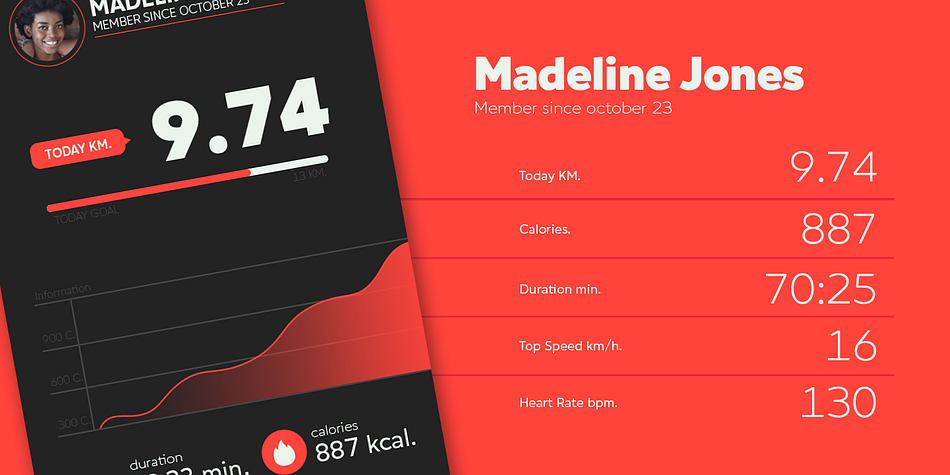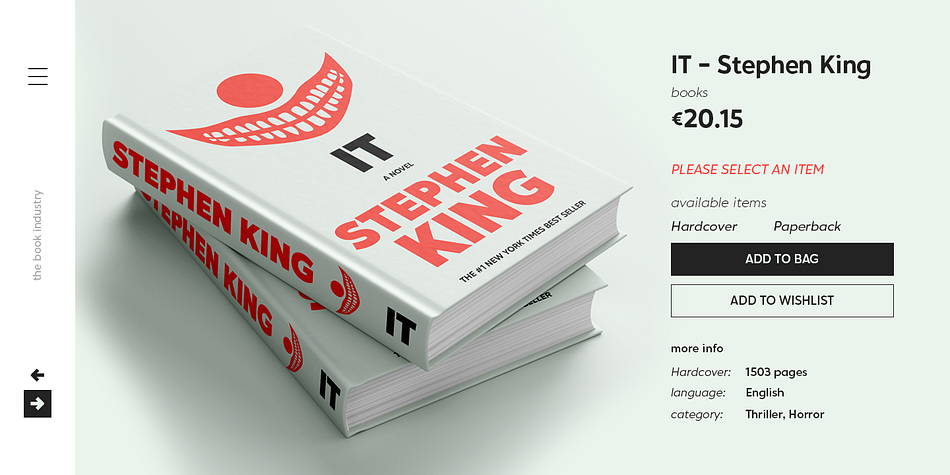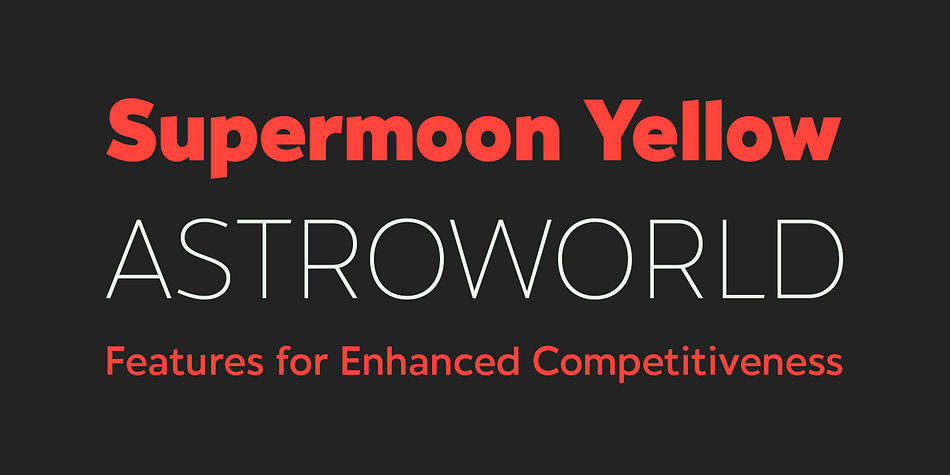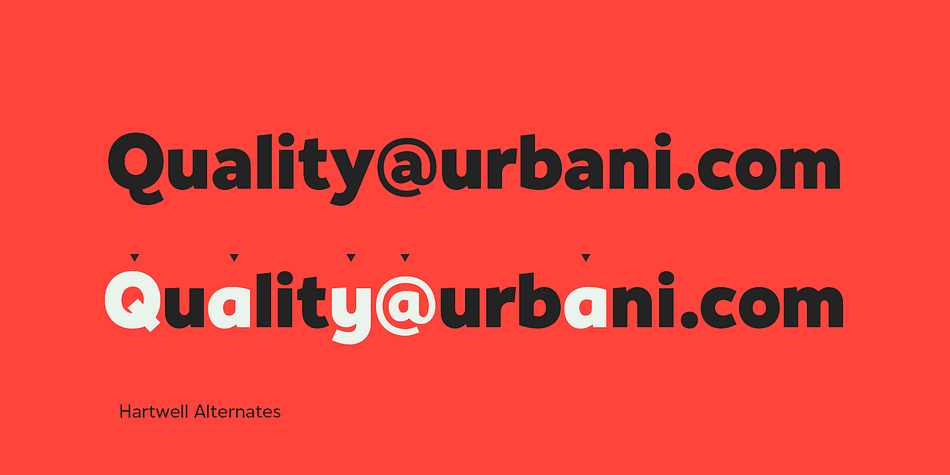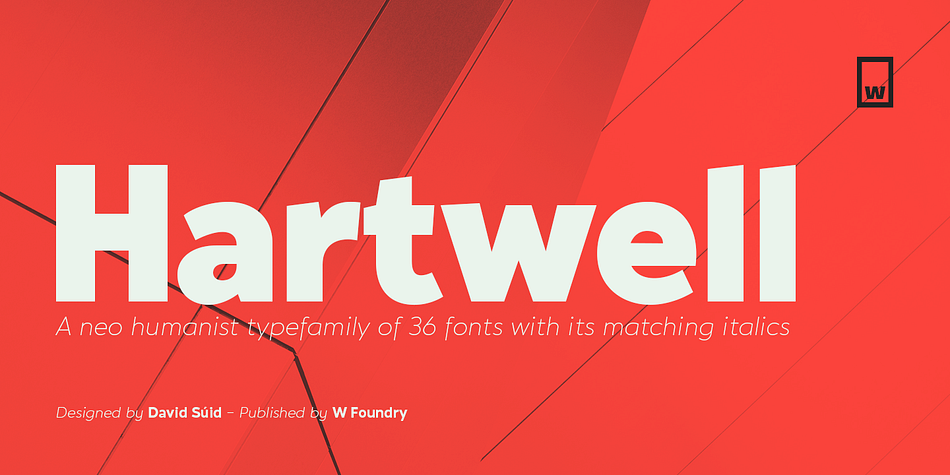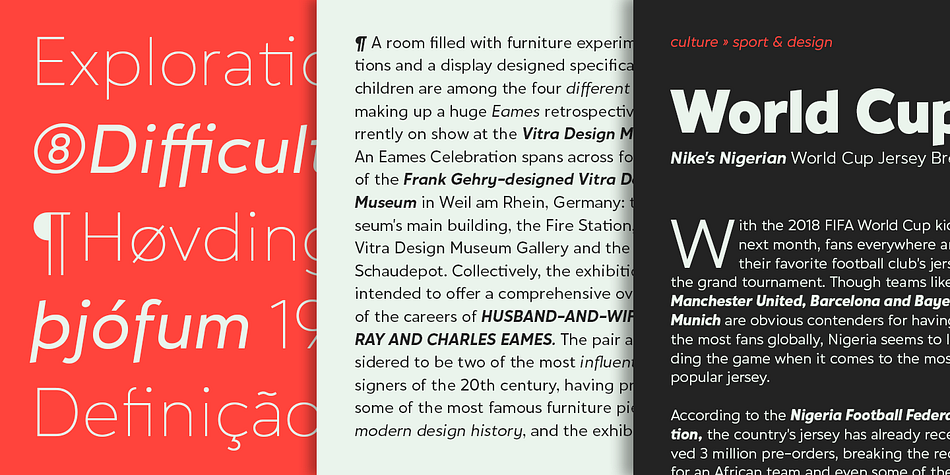
Hartwell
Hartwell is a sans serif font family. This typeface has eighteen styles and was published by W Type Foundry.
Hartwell is a Neo-humanist sans serif type family. Its strokes and terminal are related to the calligraphic shapes from humanist typefaces in sets with geometric touches. This combination results in a versatile postmodern type family ready to use with many possibilities.
Hartwell comes in 18 weights from thin to heavy plus its matching italics. Moreover, this family has OpenType features such as arrows, ligatures, fractions, special numbers, alternate glyphs, extended language support and many more. Hartwell has the ability to blend perfectly in all sort of projects like editorial design, branding, advertising, headlines and short texts.